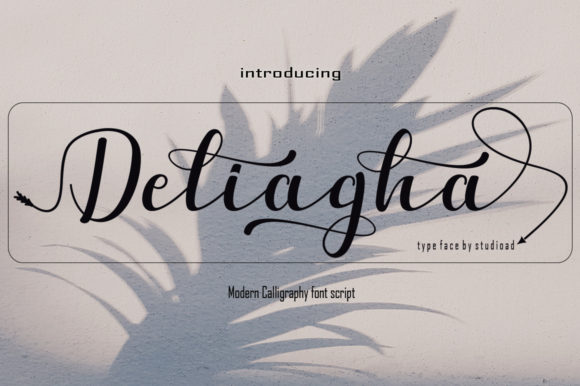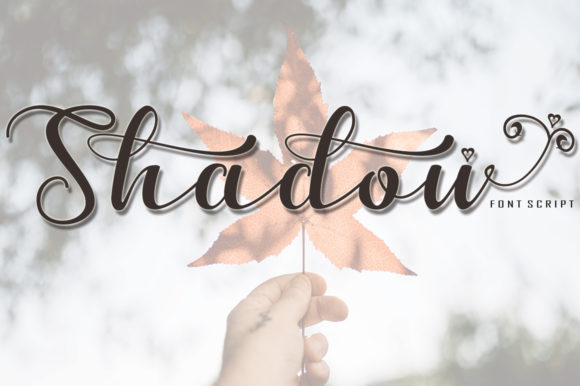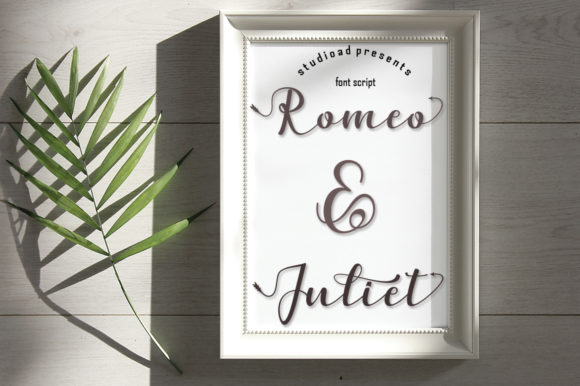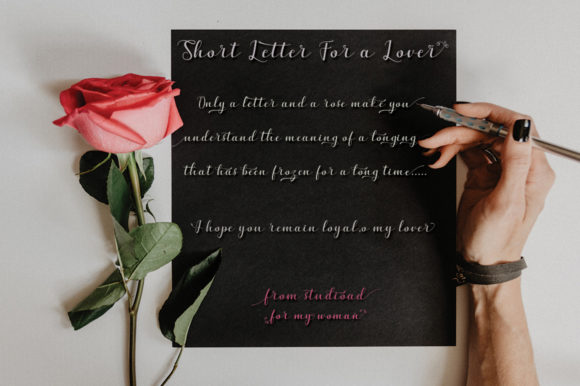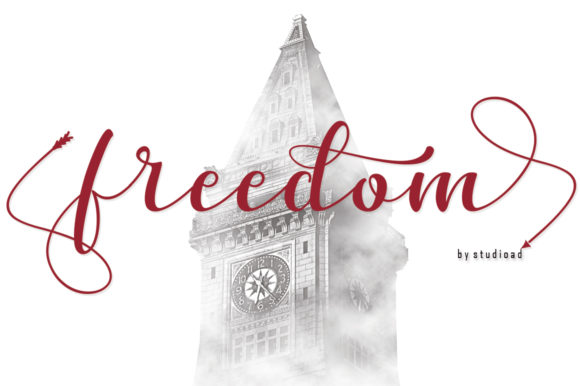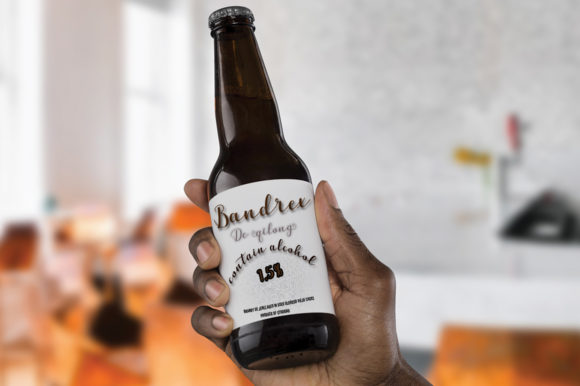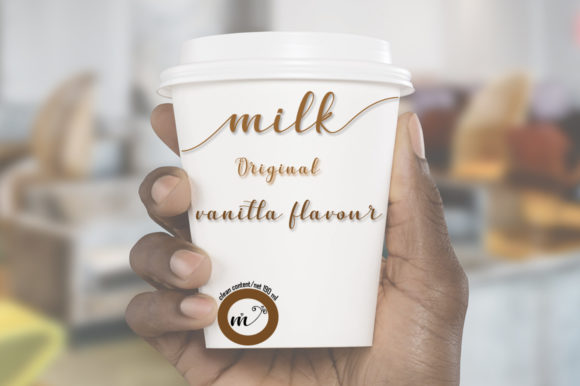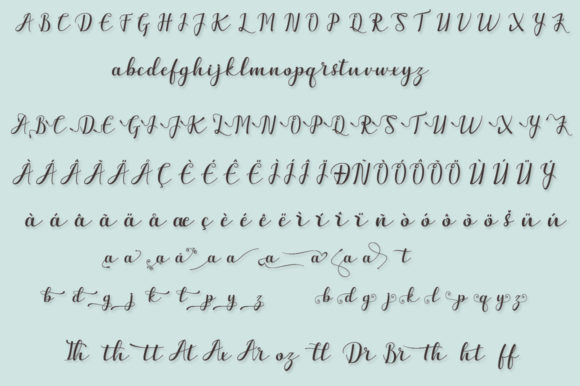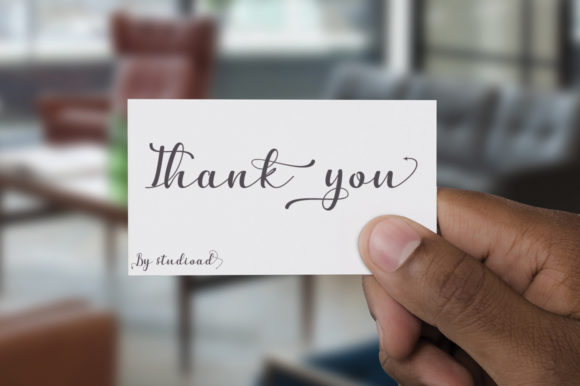
HomeScript FontsDeliagha Font Script Fonts Deliagha Font FacebookXPinterestWhatsApp Deliagha Font Poster 2 Deliagha Font Poster 3 Deliagha Font Poster 4 Deliagha Font Poster 5 Deliagha Font Poster 6 Deliagha Font Poster 7 Deliagha Font Poster 8 Deliagha Font Poster 9 About Deliagha Font Deliagha is a truly unique and stunning script with a unique feel. Get inspired by its romantic swashes! DOWNLOAD NOW People also explored Dasting Font Sour Kiwi Font Viper 78 Font Summer Monday Font Saturday in Love Font Butterglow Font Lundoon Font Welcome Happinness Font Laskar Font 282 0 TagsDeliagha Font Previous articleHandle FontNext articleValanda Font LEAVE A REPLY Cancel reply Comment: Please enter your comment! Name:* Please enter your name here Email:* You have entered an incorrect email address! Please enter your email address here Website: Save my name, email, and website in this browser for the next time I comment. Personal Use Free Pumpkin Type Halloween Font Personal Use Free Read more about this font Rogueland Personal Use Free Read more about this font Good Mood Personal Use Free Read more about this font 1980 Portable Personal Use Free Read more about this font BLOG Using Fonts in Digital Marketing: Tips to Strengthen Your Brand Identity In the realm of digital marketing, every visual element plays a crucial role in shaping a brand's identity, and fonts are no exception. The... Transform Your Website: Elevate Your Typography with 7 Best Web Font Generators How to Cut Any Font on Cricut: Convert a Font to SVG (Free) Free Fonts Risk: Why Free Fonts Can Be Dangerous for Designers